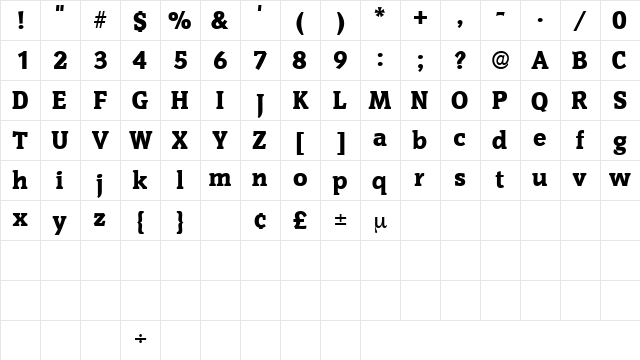
OritDisplaySSK Regular
Design Context for OritDisplaySSK Typeface
OritDisplaySSK is built around its visual character rather than neutral utility — its distinctive forms are designed to make an impression at display sizes.
Font Pairing: Pair with a clean neutral sans-serif for body copy to let OritDisplaySSK's character lead without overwhelming the composition.
Pro Tip: Treat OritDisplaySSK as the centrepiece of your typographic hierarchy. One strong heading set in a decorative face can carry an entire layout.